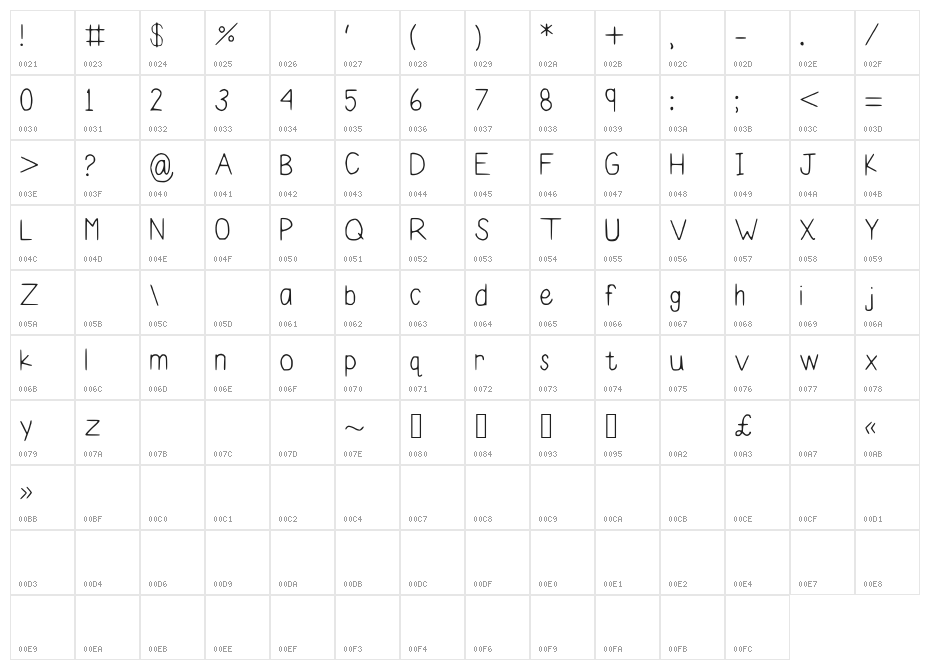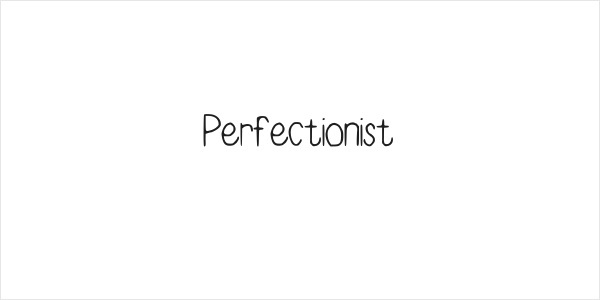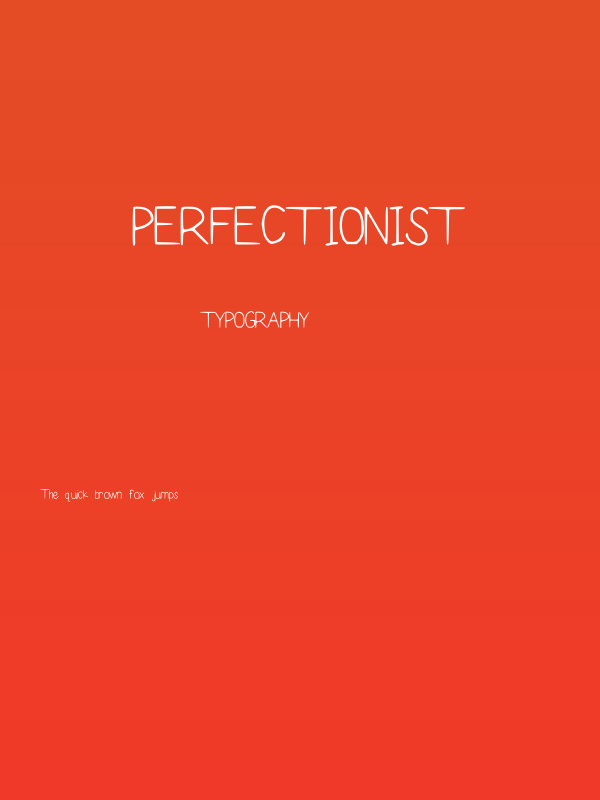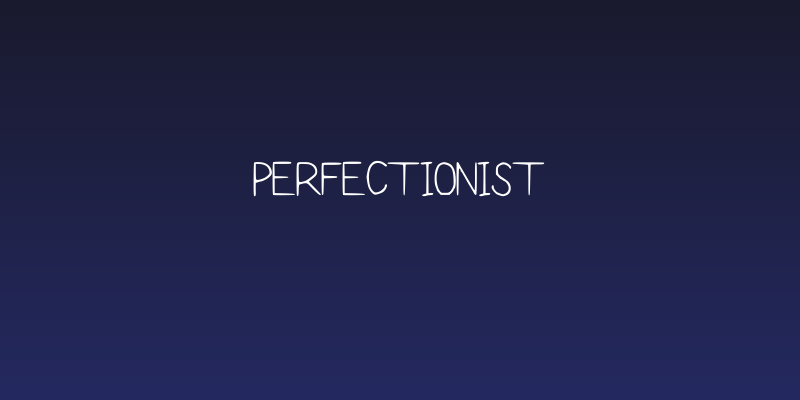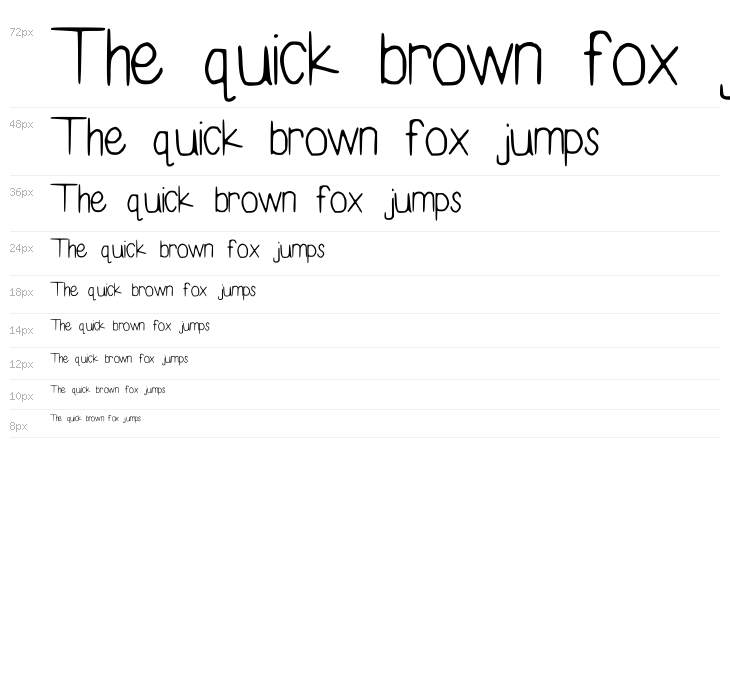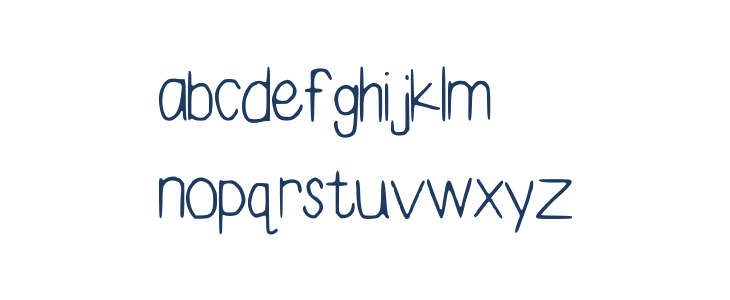
Perfectionist Font
Perfectionist Description
This font features a playful and casual handwritten style, characterized by its tall, narrow letters with slightly uneven strokes that give it a whimsical and friendly appearance. The uppercase letters maintain a consistent height, while the lowercase letters exhibit a charming irregularity, enhancing the font's informal aesthetic. The numerals are clear and legible, matching the overall style of the alphabet. Special characters are included, maintaining the same playful design. The font's simplicity and charm make it suitable for a variety of creative projects.
| Proposed Projects | Ideal for children's books, greeting cards, casual invitations, and playful branding. |